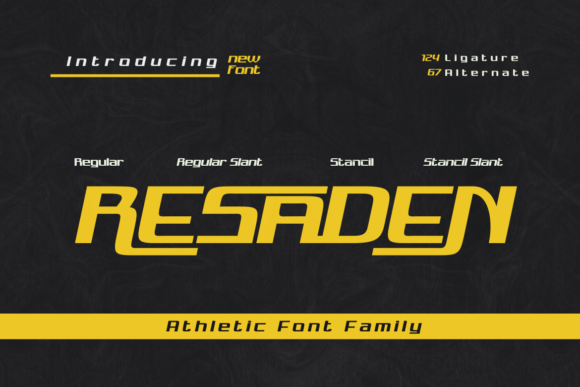
Welcome to the world of Resaden, an electrifying display font that's sure to make your designs leap off the screen. With its bold and sporty personality, Resaden is a font that demands attention, making it the perfect choice for headlines, posters, and any project where you want to create a lasting impression.
Stride confidently into the world of sports with Resaden. Its dynamic and muscular lines are a perfect match for sports t-shirts, event posters, and anything else that needs a touch of athletic flair. Let Resaden be your MVP, scoring the winning touchdown with every design.
But Resaden's versatility doesn't stop at the stadium. Dive headfirst into the world of documentaries and make your message heard with Resaden's impactful presence. Its bold strokes and strong personality will add a touch of gravitas to your projects, ensuring your message resonates with viewers.
With Resaden, the possibilities are endless. Its PUA encoding grants you access to a treasure trove of glyphs and swashes, giving you the creative freedom to let your imagination run wild. Explore the depths of design and craft visuals that captivate and inspire.
Resaden is not just a font; it's a gateway to a world of visual impact. Unleash its power and watch your designs transform into masterpieces that leave an indelible mark on your audience. Embrace the power of Resaden today and let your creativity soar.